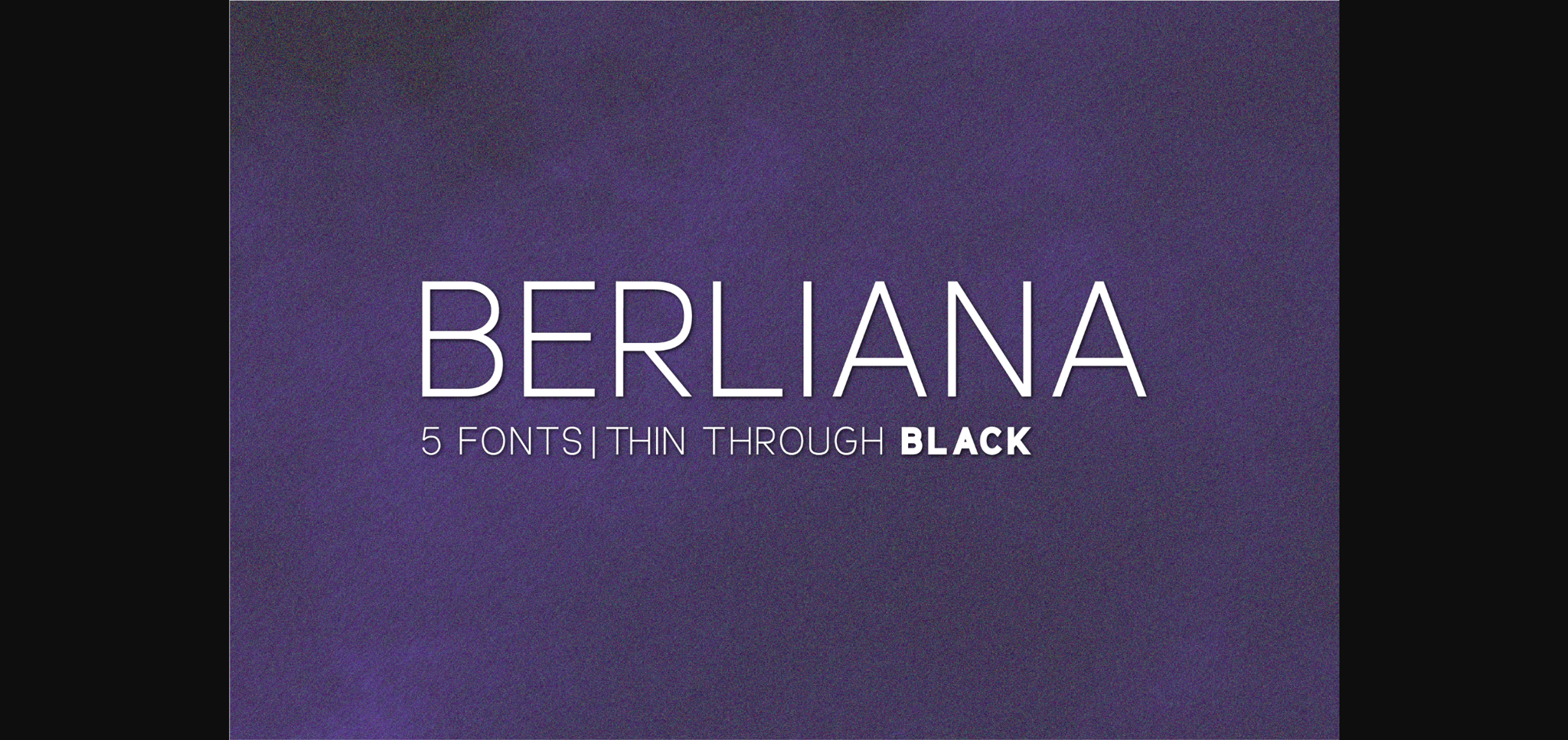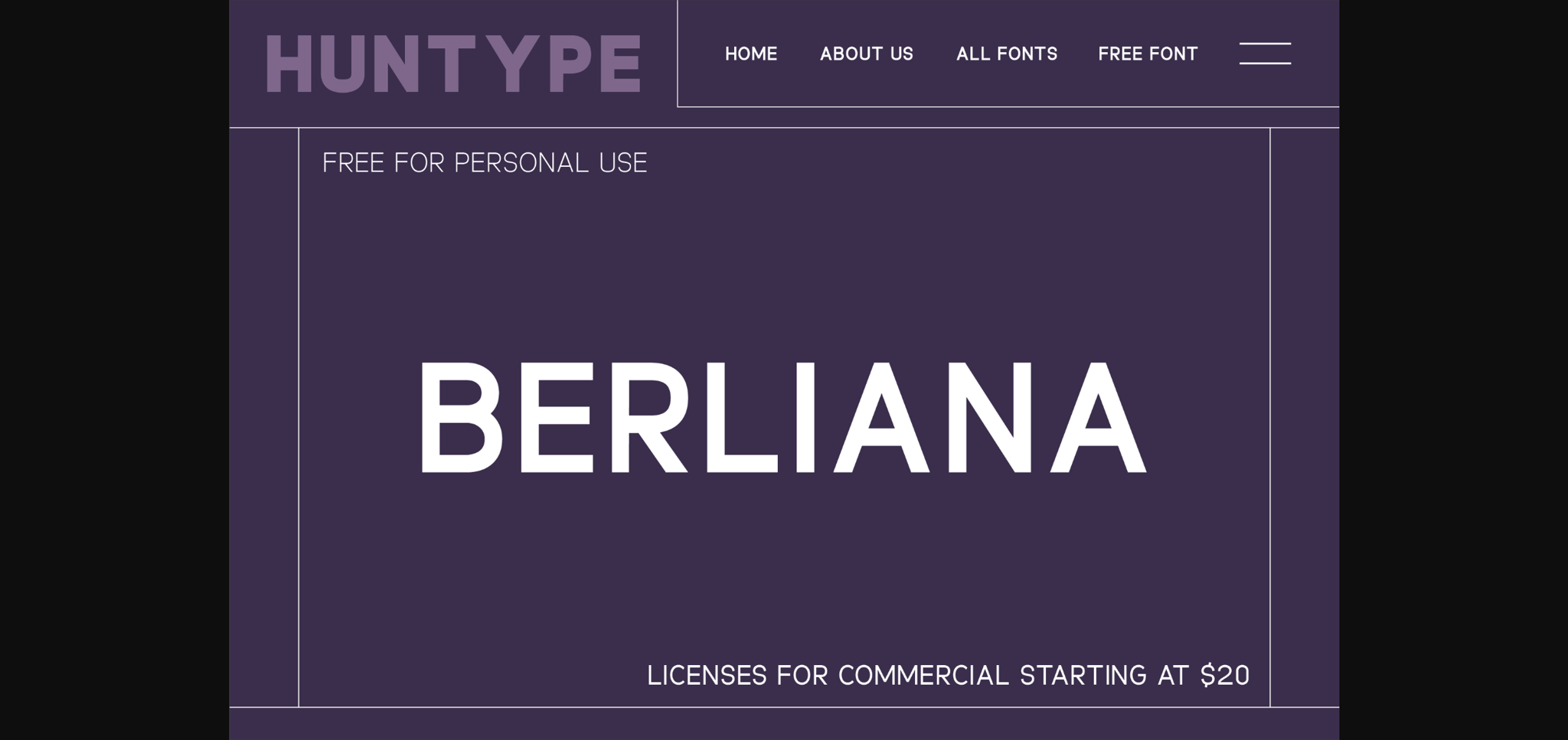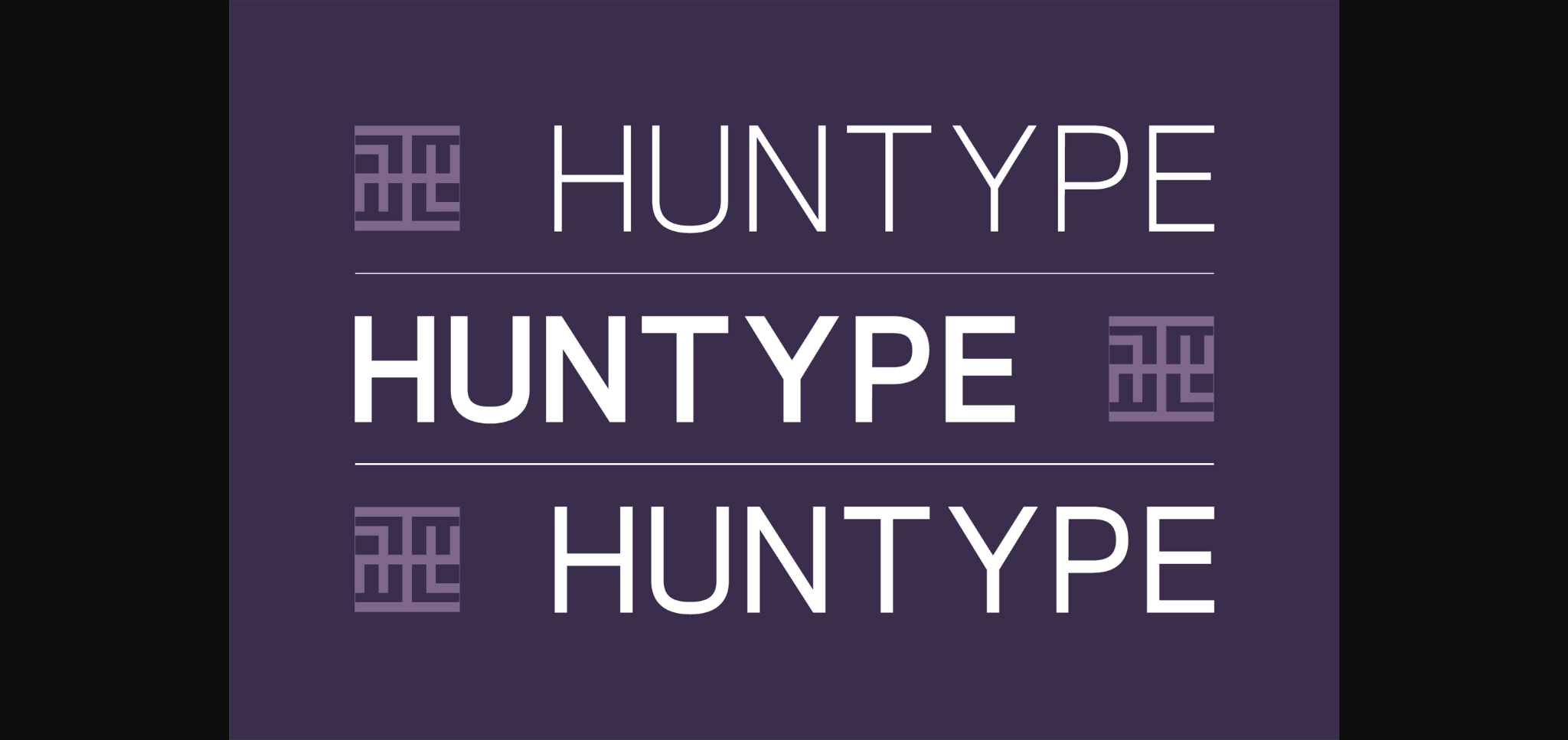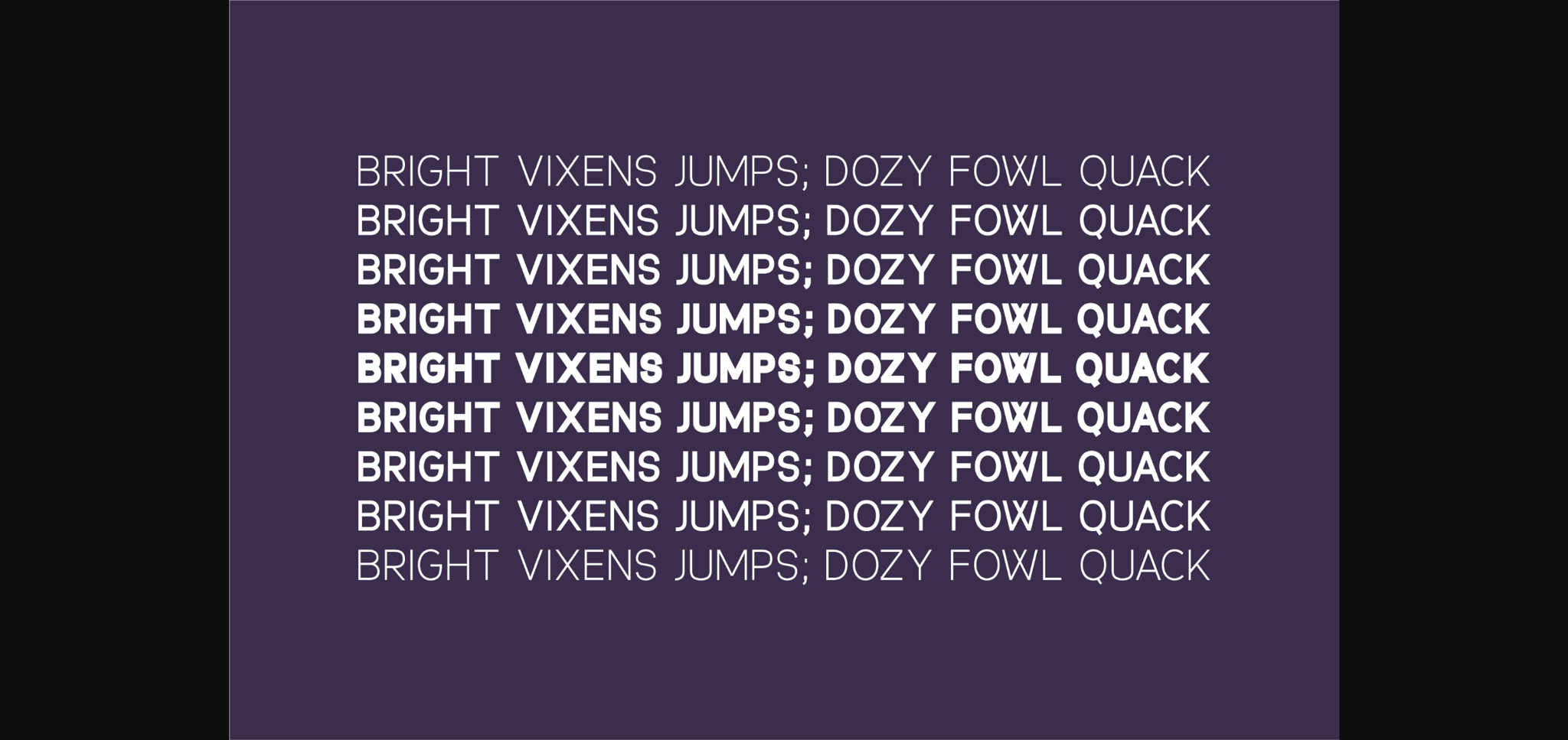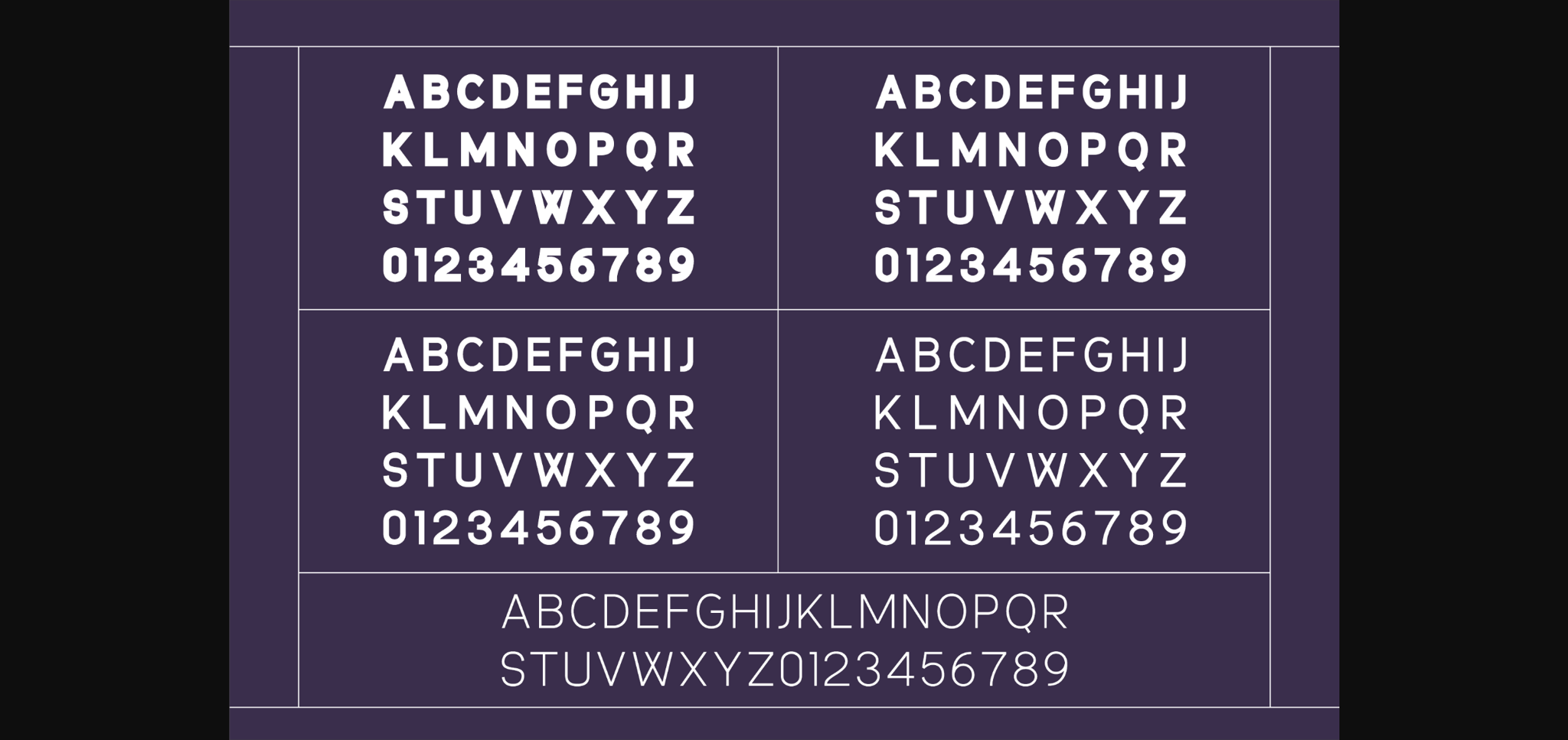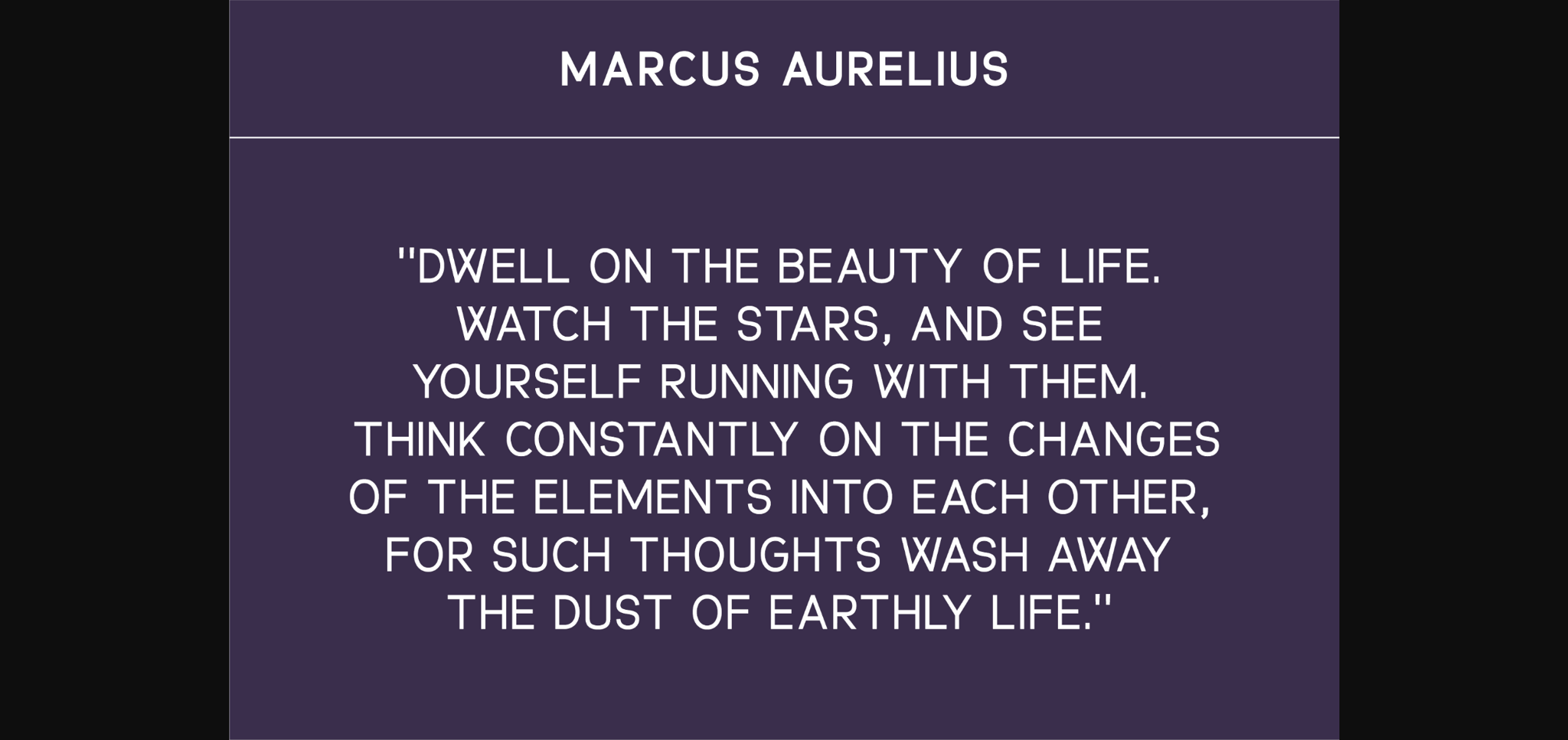
Berliana Family Font
About Berliana Family Font
Experience the unrivaled charm of Berliana Font Family, a finely curated blend of modern sophistication and classic elegance. Created with careful precision, our font family reveals itself in five unique weights: THIN, LIGHT, REGULAR, BOLD, and BLACK, making it a must-have tool for the toolbox of creative designers and content creators alike. Berliana Font Family extends an extensive palette of creative possibilities, making each design a masterpiece. Whether your project calls for a whisper of subtlety or a shout of boldness, Berliana beautifully lends itself to both, fusing contemporary flair and timeless sophistication. Turn to Berliana Font Family to ensure your work resonates with unique brilliance and high-end distinction.